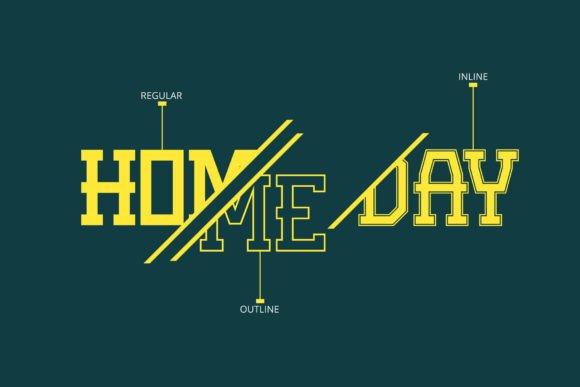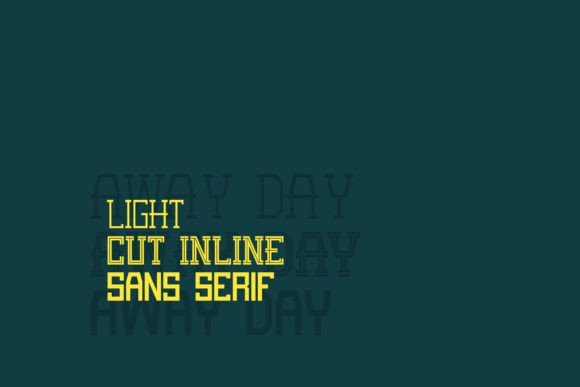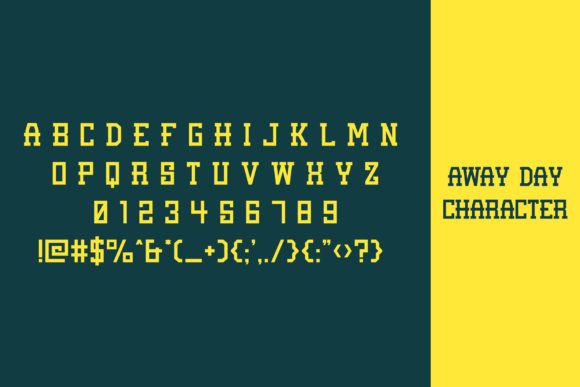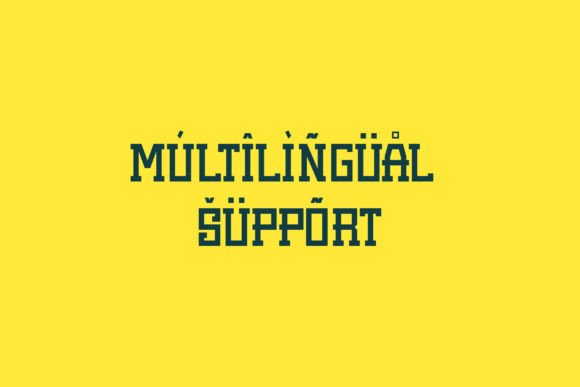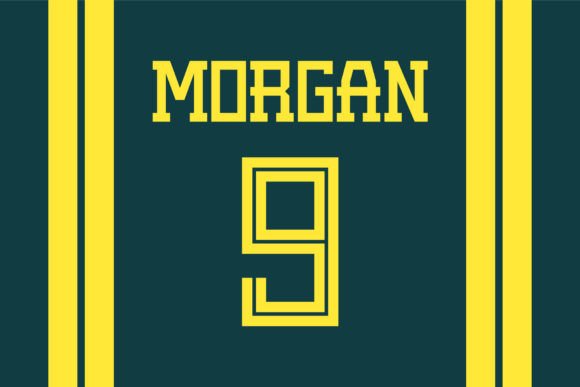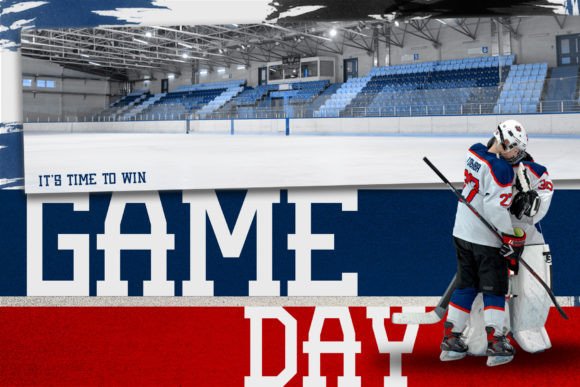
Unleashing the Spirit of Sports Design
Do you remember that moment when you first saw your favorite sports team’s logo or jersey? The rush of excitement, the pride of belonging, and the thrill of competition all combined to create an unforgettable experience. As designers, we strive to capture that essence and bring it to life through our work. And that’s exactly what Away Day Sport Family Font is all about – infusing the spirit of sports into every design, every project, and every creative endeavor.
Designed with sports enthusiasts in mind, Away Day Sport Family Font is a unique and versatile typeface that can be used in a wide range of applications, from graphic design and sports branding to sports-themed movies and television programs. Its value lies in its ability to evoke the emotions and energy of sports, making it a must-have for designers looking to add a touch of excitement to their work.
Away Day Sport Family Font Key Features
- Size and Resolution: The font comes in 5 different weights (Light, Regular, Medium, Bold, and Black) and is optimized for use at high resolutions (up to 72 dpi).
- Unique Characteristics: Away Day Sport Family Font features a modern, sporty design with clean lines and a dynamic feel, making it perfect for use in sports-related branding and advertising.
- Language Support: The font includes support for over 200 languages, making it a great choice for international projects and branding.
- Font Metrics: Away Day Sport Family Font has a x-height of 650, an ascender of 800, and a descender of 200, making it well-suited for use in a variety of contexts.
Away Day Sport Family Font Review
Overall, I’m impressed with the Away Day Sport Family Font, and I think it has a lot of potential for use in sports-related branding and design projects. Here are some of the things that I think work well:
- ✨ The font’s bold and modern aesthetic makes it perfect for use in headlines and titles.
- ✨ The font’s weight range is well-designed, allowing for a good balance between light and bold variations.
- ✨ The font’s ligatures are well-crafted, adding to its overall aesthetic appeal.
- ⚠️ The font’s italic and oblique styles are not as well-designed as the rest of the font, and may not be as suitable for use in body text.
- ⚠️ The font’s kerning could be improved, particularly for certain letter combinations.
Overall, I think the Away Day Sport Family Font is a great addition to any designer’s toolkit, but it’s not without its limitations. With some careful use and adjustment, it can be a powerful tool for creating eye-catching and effective designs.
Tips for Getting the Most Out of Away Day Sport Family Font
Use Away Day Sport Family Font for sports-related designs, such as posters, flyers, and social media graphics.
Experiment with different font sizes and styles to create a dynamic and eye-catching design.
Pair Away Day Sport Family Font with other sports-themed graphics and images to create a cohesive and engaging design.
Away Day Sport Family Font is perfect for:
Sports teams and leagues